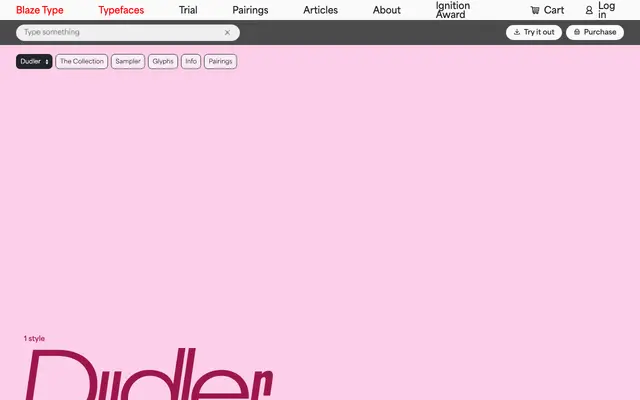
Dudler
Blaze Type · Franziska Weitgruber · 2022
Dudler specimen from Blaze Type
A single-weight display sans with a fixed 8° italic angle and alternating narrow and wide letterforms that create an expressive typographic rhythm.
Designed by Franziska Weitgruber and released in 2022, Dudler grew from a chance observation of a Swiss truck's lettering in Val Venosta valley. The typeface pairs narrow italic-style characters with wide round ones, and includes stylistic narrow alternates for every wide glyph, letting the user modulate rhythmic contrast at the word level. The 8° slant injects a consistent dynamism suited to posters, web headers and motion work.
A single-weight upright italic with an 8° angle and contrasting narrow-wide letter pairs; conceived for headlines and display work, making it closer to display sans than a conventional grotesque or humanist sans.